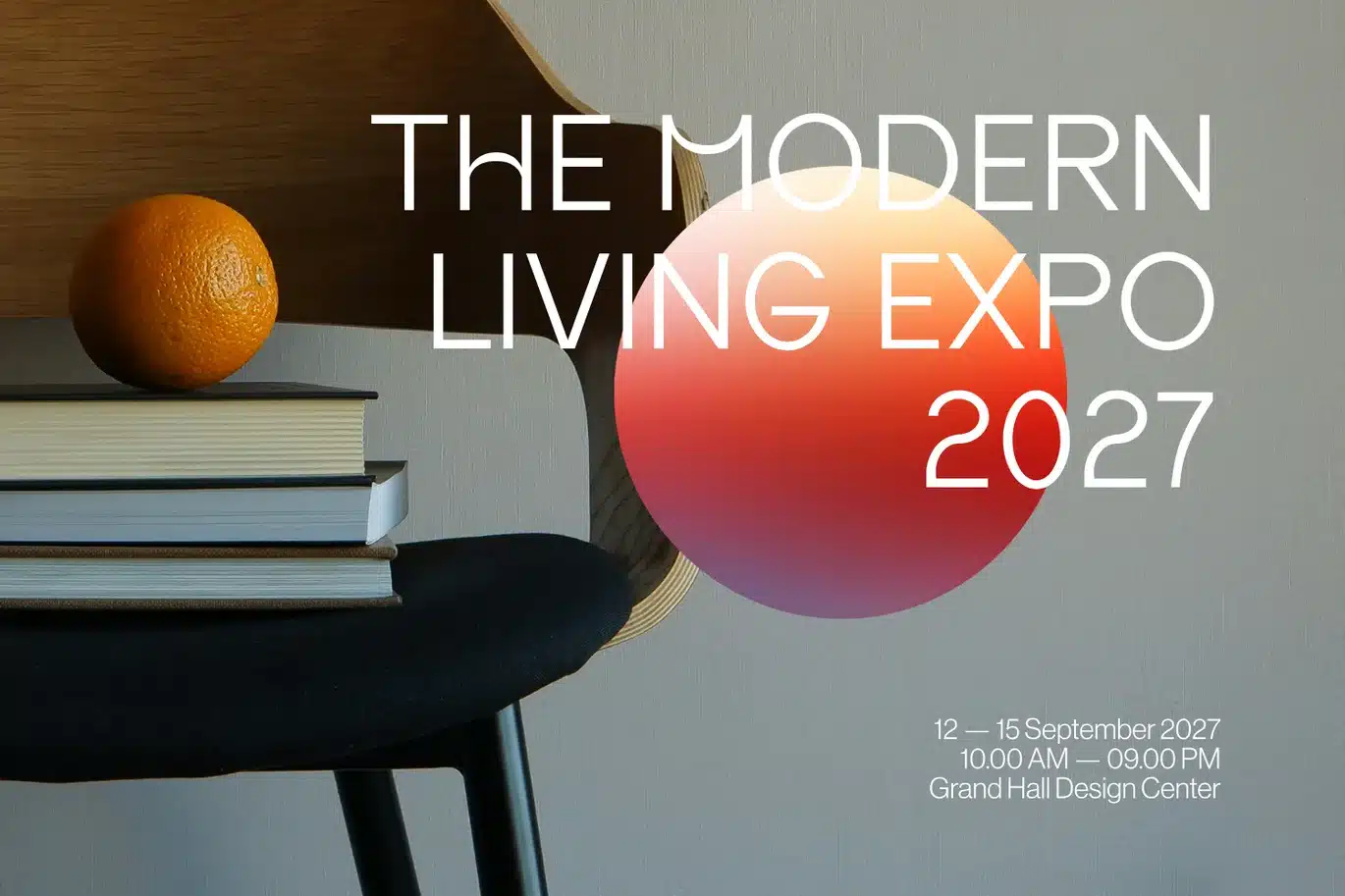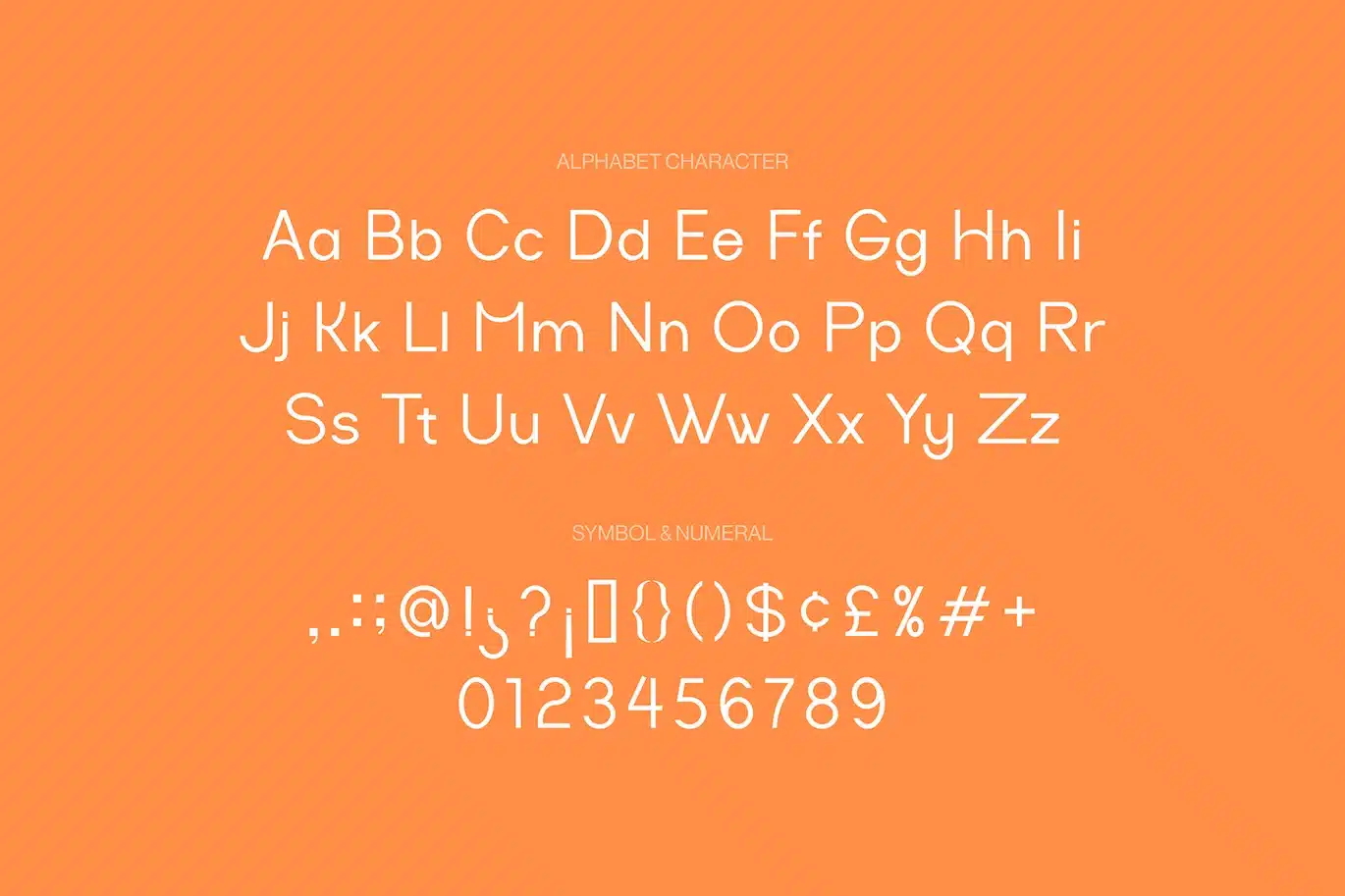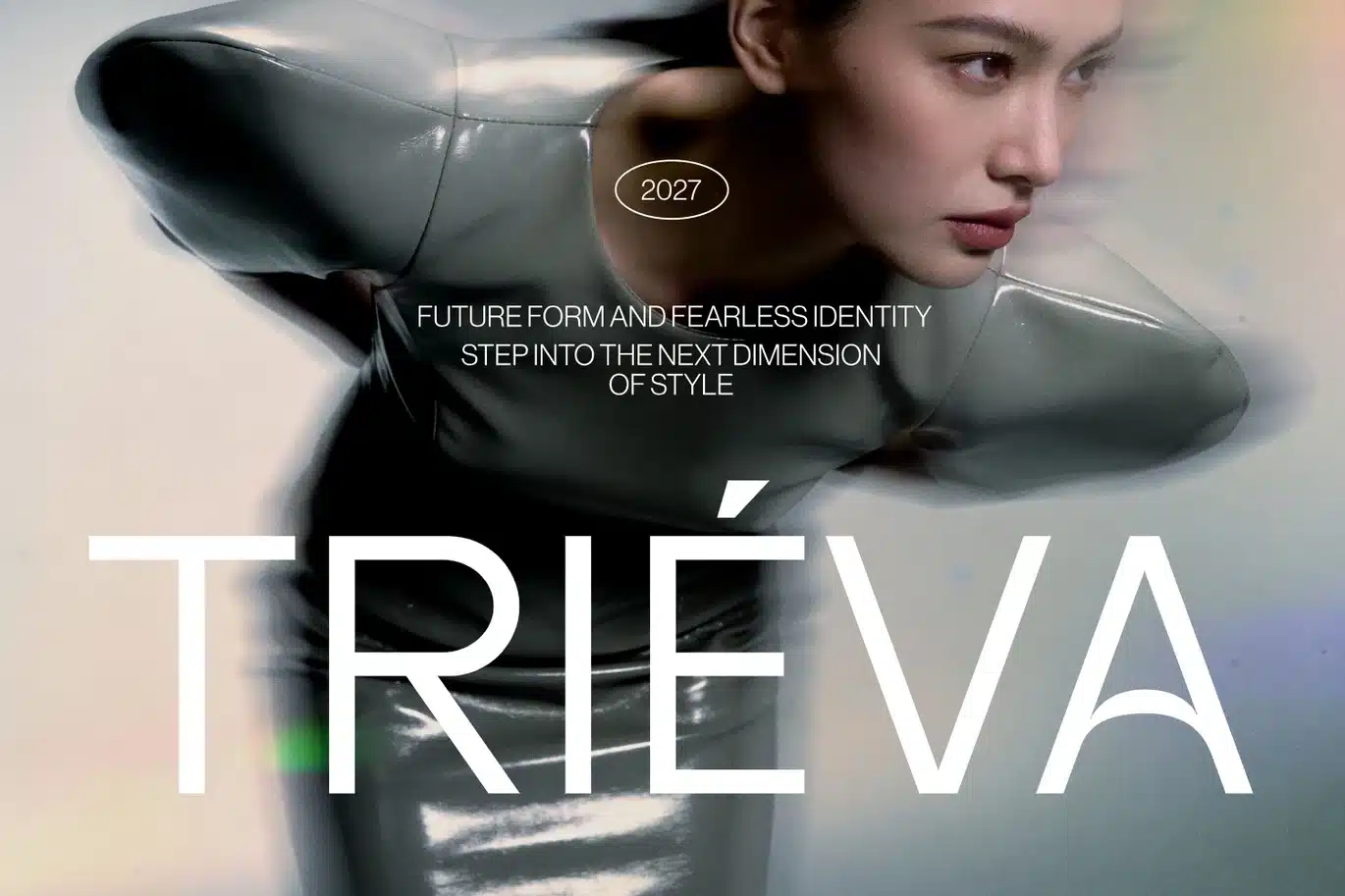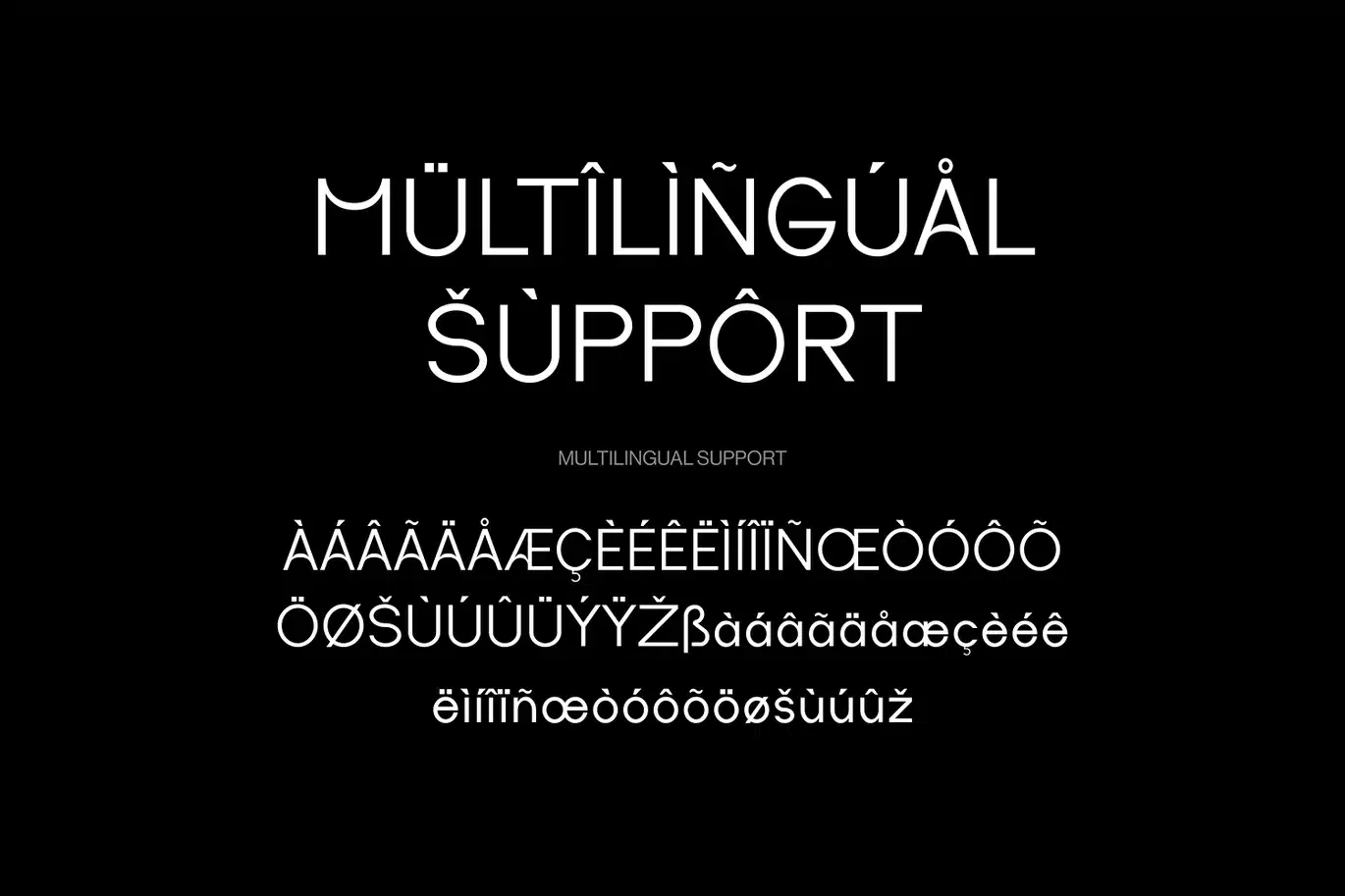
Komica – Logo Font
Komica font is a modern and elegant display typeface that combines clean minimal structure with a soft, friendly personality. Inspired by the geometric clarity of helvetica, montserrat, and futura, this font brings a fresh approach to logo design and contemporary branding. Its smooth curves and balanced proportions make it suitable for fashion, corporate, and creative projects that require a refined yet approachable visual identity.
Designed to be versatile, Komica font works seamlessly across both professional and playful directions, making it ideal for kids concepts as well as corporate layouts. The clean and minimal design ensures excellent readability while maintaining a strong display presence, allowing it to stand out in logos, branding systems, and modern visual compositions. Komica is a reliable choice among modern fonts for designers seeking elegance, clarity, and flexibility in one typeface.